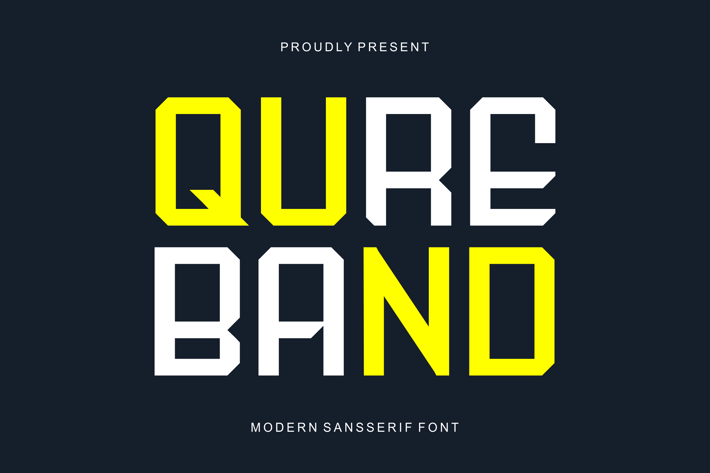
Qureband - Techno And Sport Font
Presenting Qureband - Font is suitable for badge, labels, logo, branding, magazine, poster and etc. Our fonts have Uppercase & Lowercase, Numeral & Punctuation, Multilingual support and Opentype Features. For Amazing designs you can mix with other fonts as a complement.